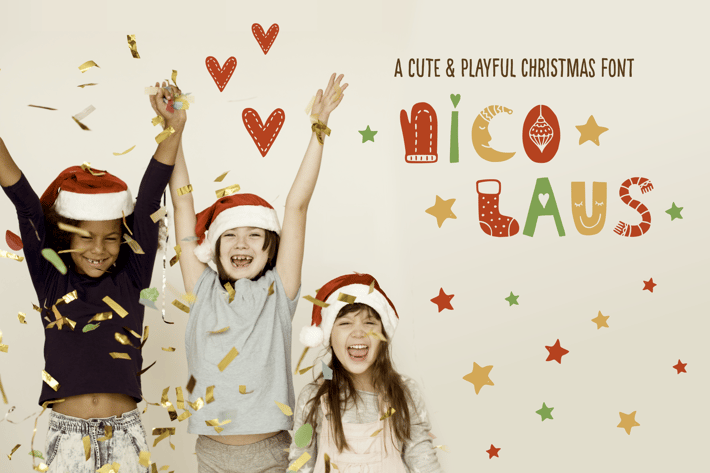
Nico Laus - A Cute And Playful Christmas Font
Nico Laus is a super cute and festive display font for Christmas.
It is especially useful for children's books and products.
Enjoy the unique letters and bring some happiness to your holiday creations!